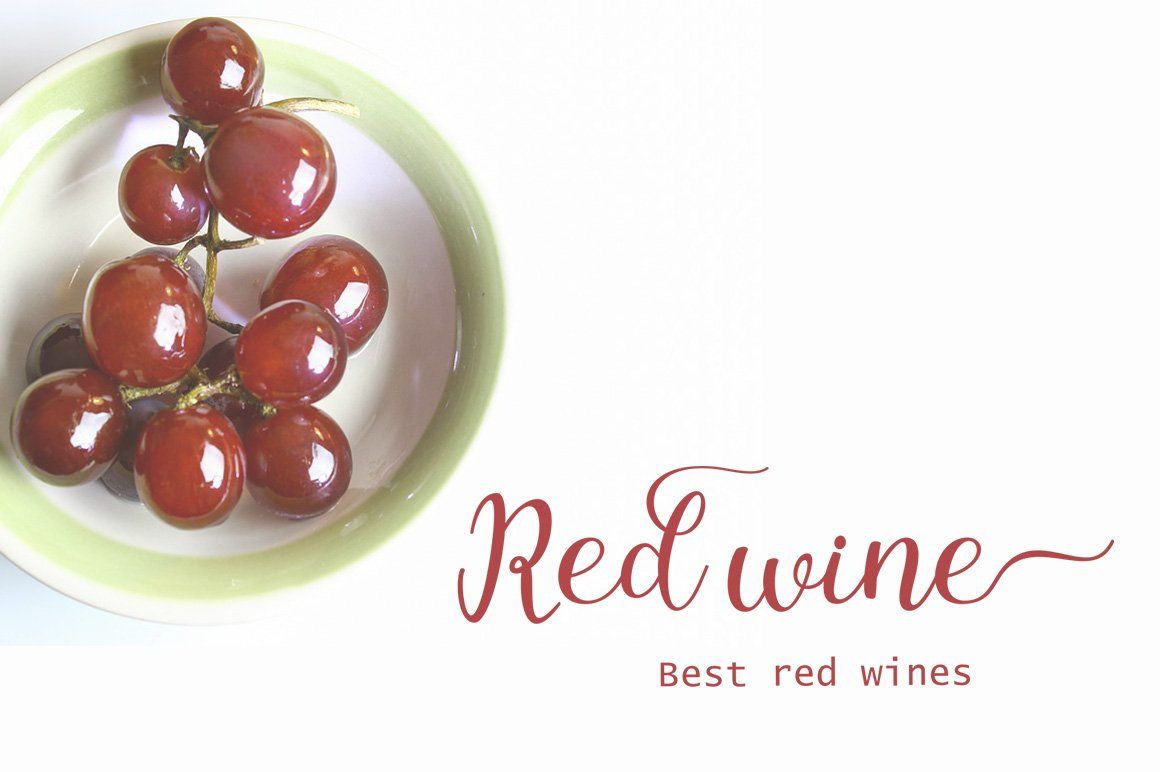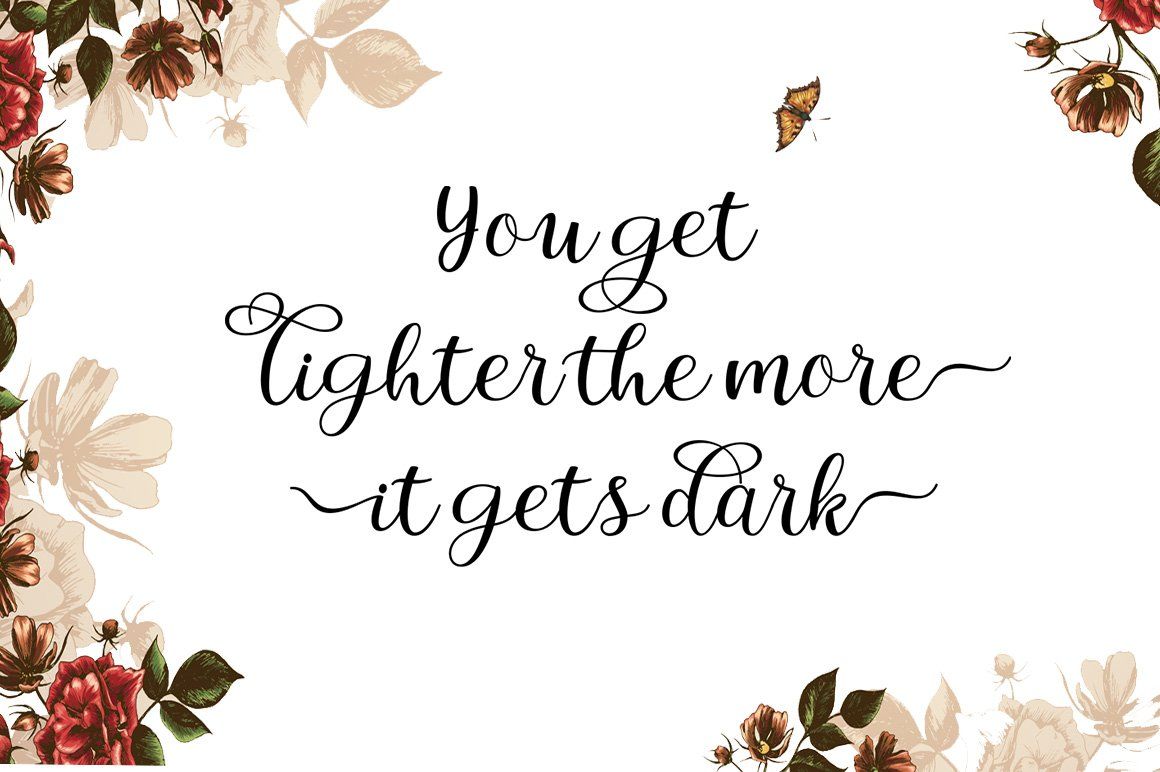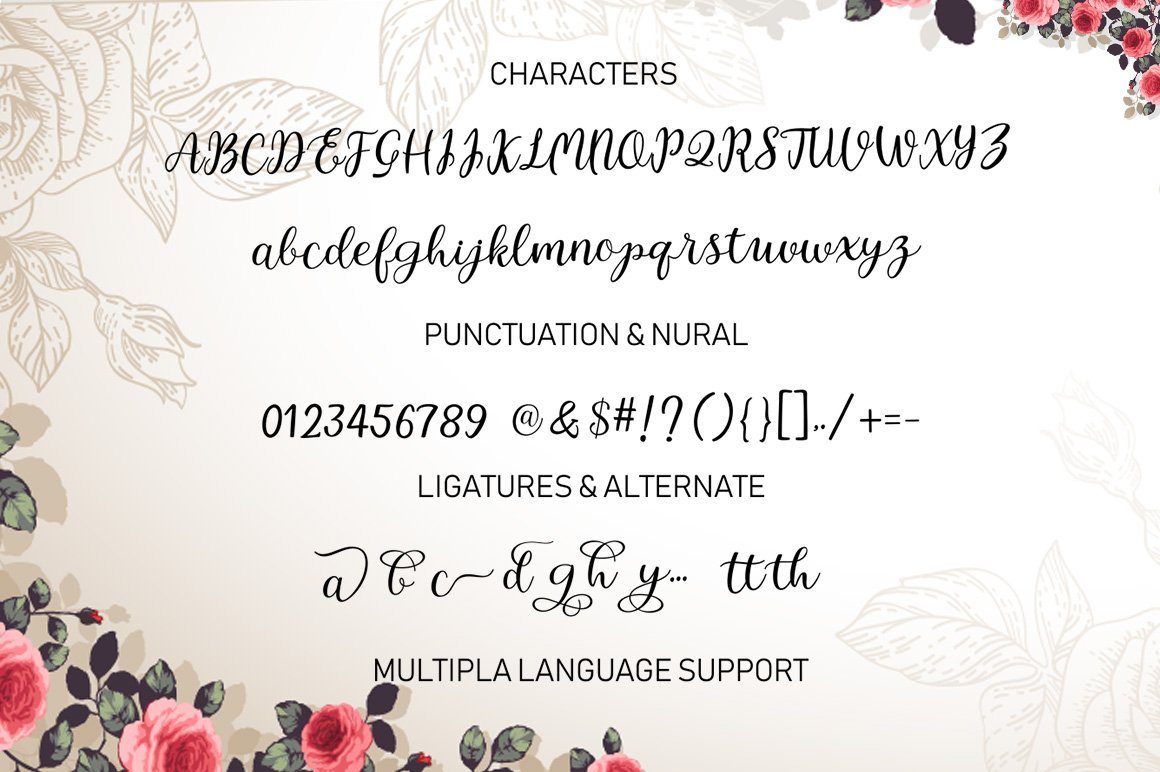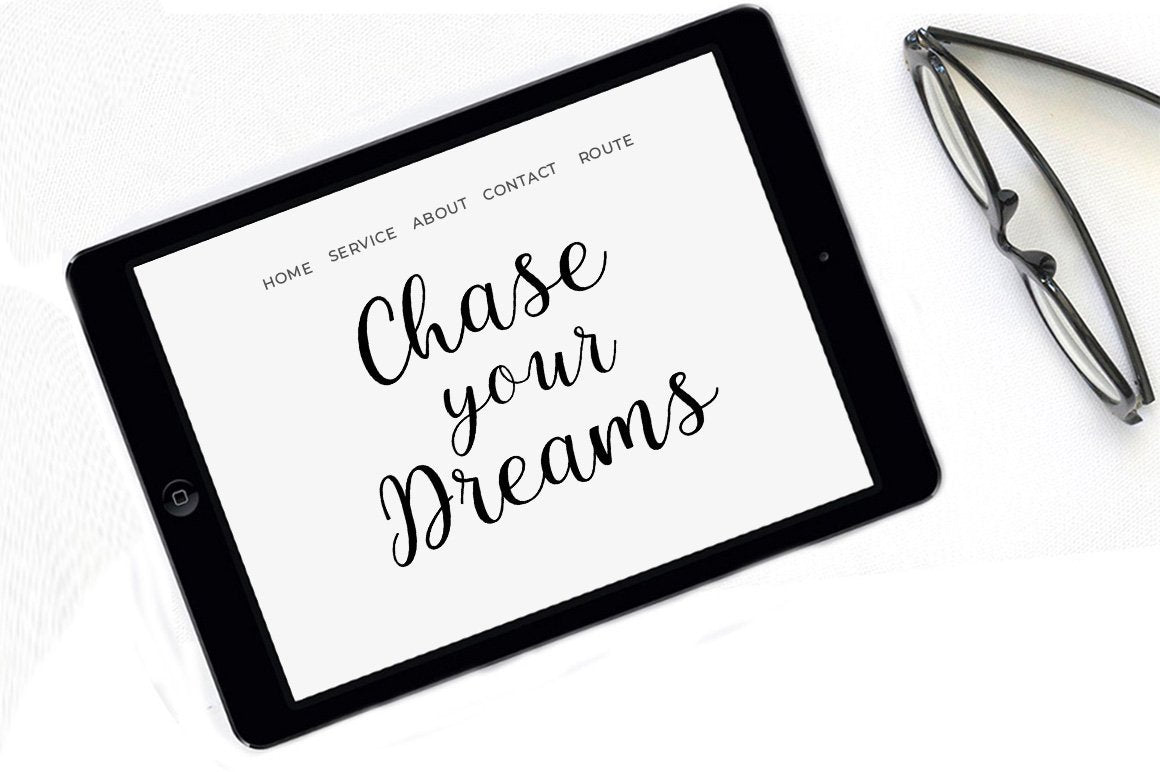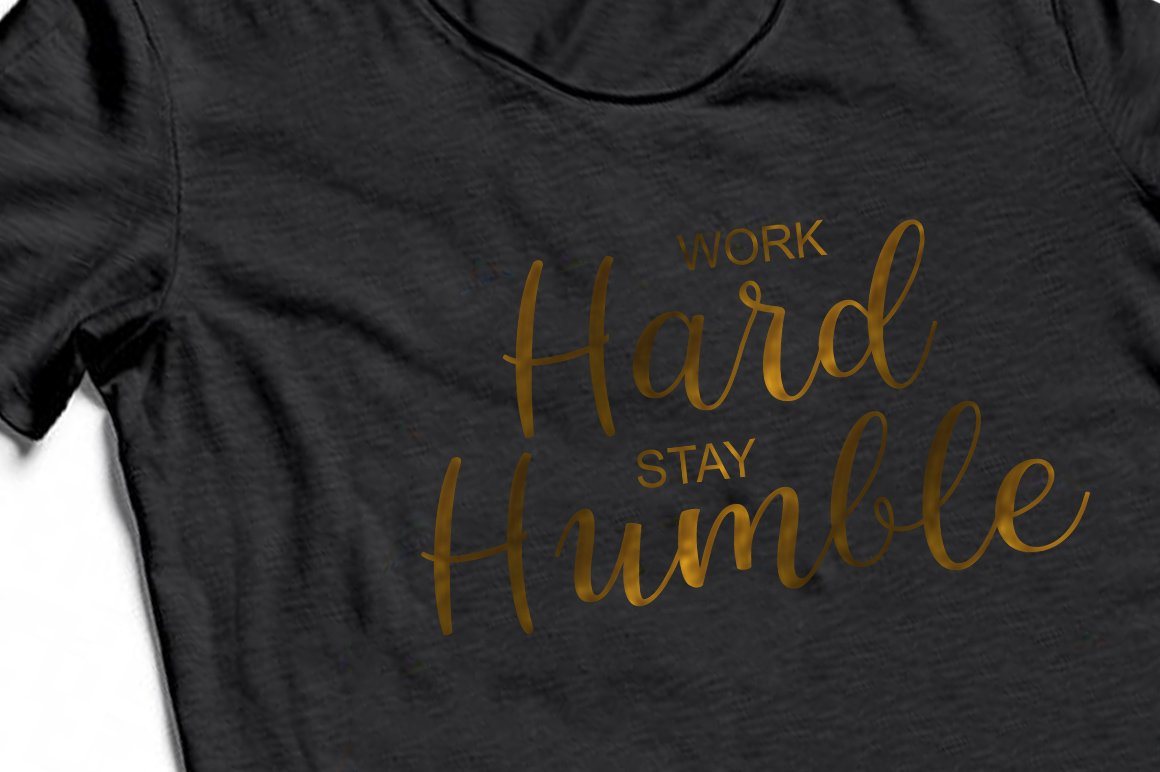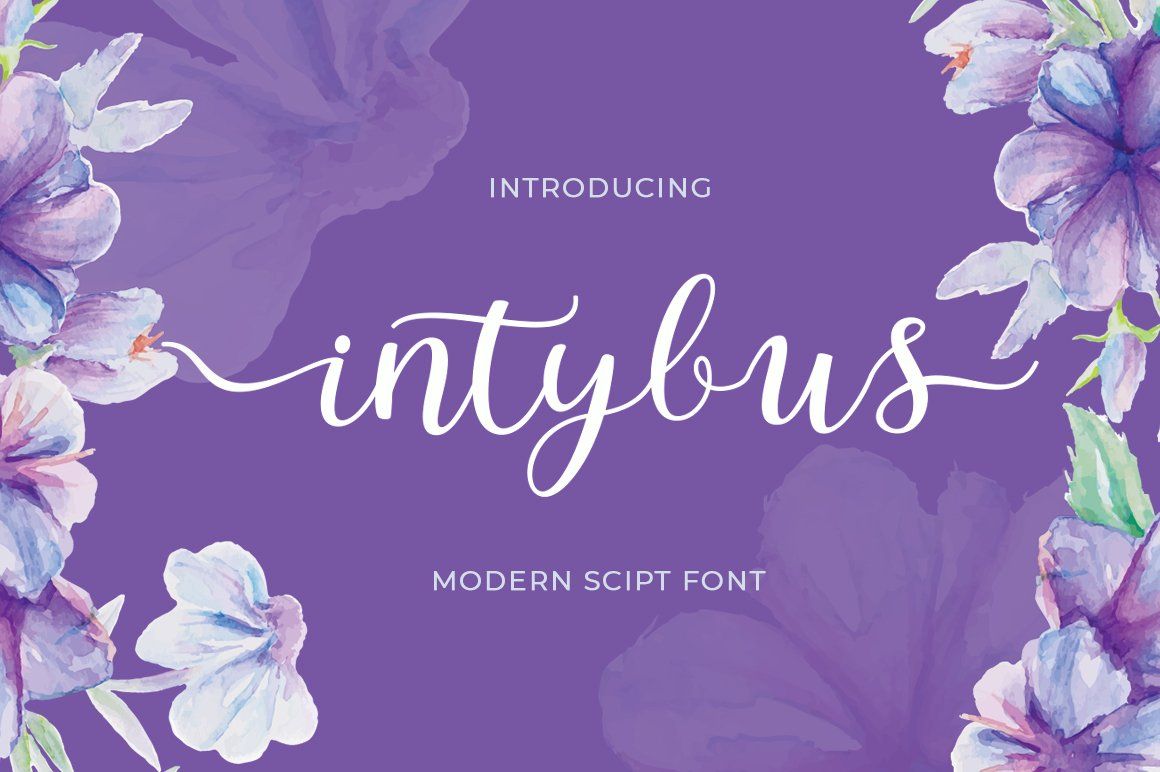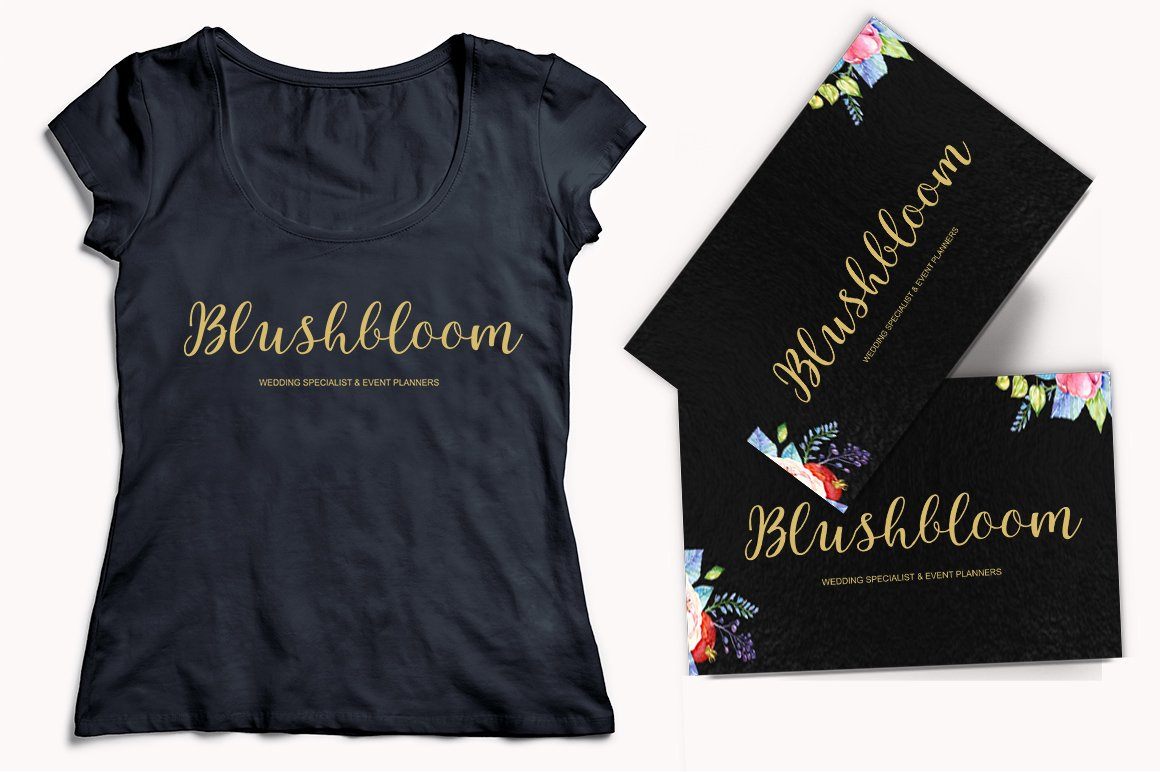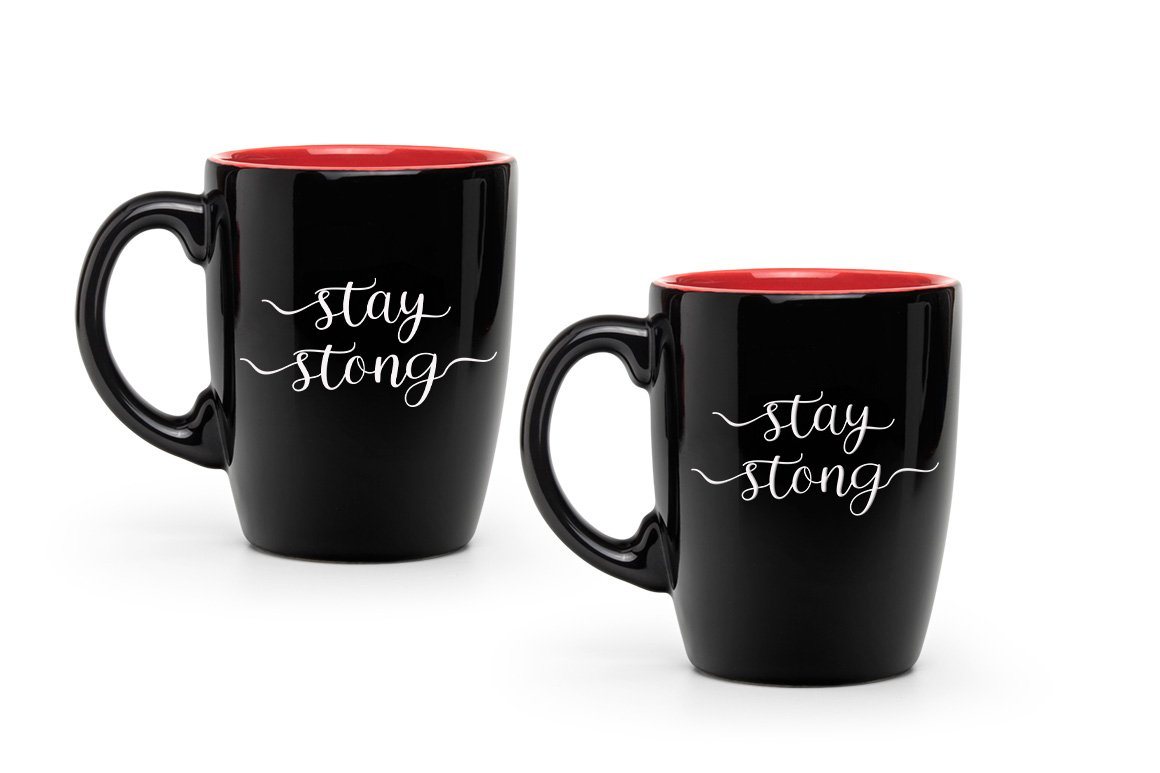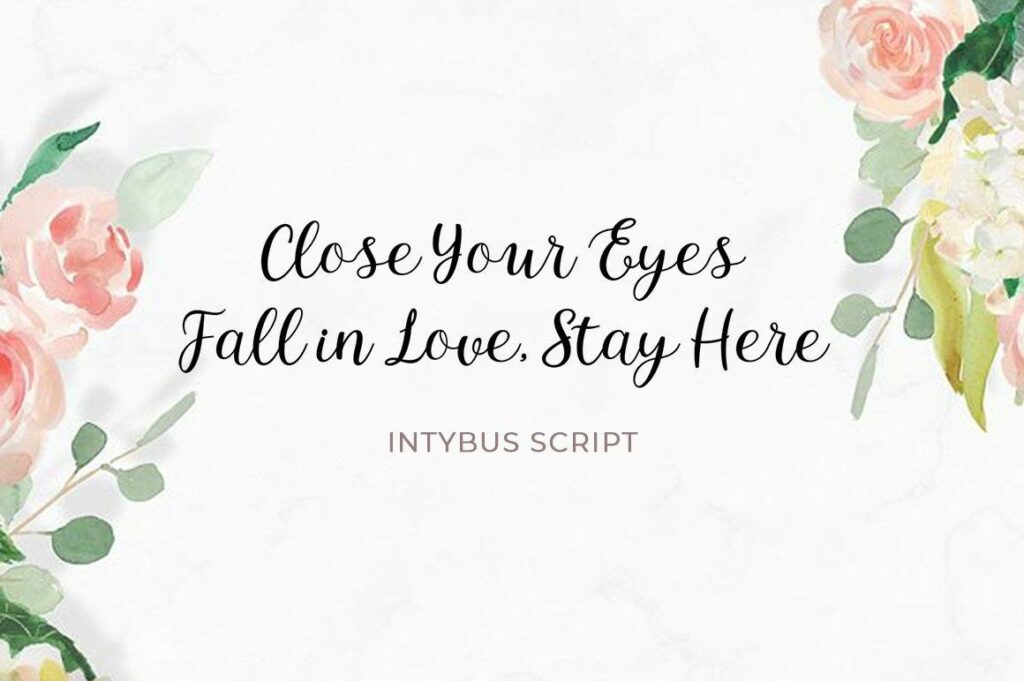
Intybus Script
About Intybus Script
Intybus Script is a new modern script font with an irregular baseline. Trendy and feminine style. Intybus looks lovely on wedding invitations, thank you cards, quotes, greeting cards, logos, business cards and more. Perfect for using in ink or watercolour. Including initial and terminal letters, alternates, ligatures and multiple language support. Files included: Intybus Script.OTF Intybus Script.TTF To enable the OpenType Stylistic alternates, you need a program that supports OpenType features such as Adobe Illustrator CS, Adobe Indesign & CorelDraw X6-X7, Microsoft Word 2010 or later versions. There are additional ways to access alternates/swashes, using Character Map (Windows), Nexus Font (Windows), Font Book (Mac) or a software program such as PopChar (for Windows and Mac).